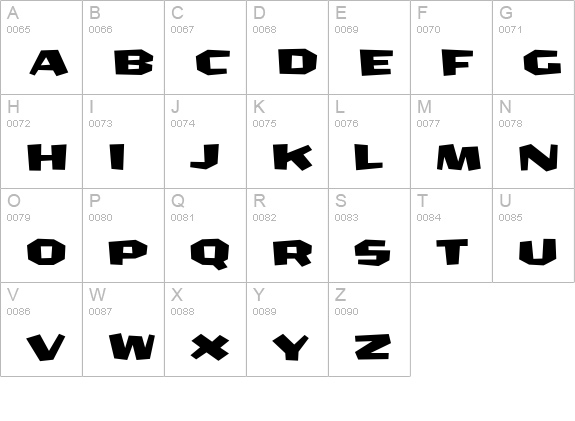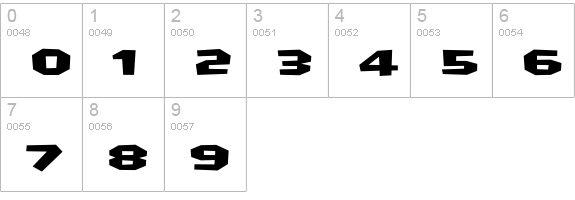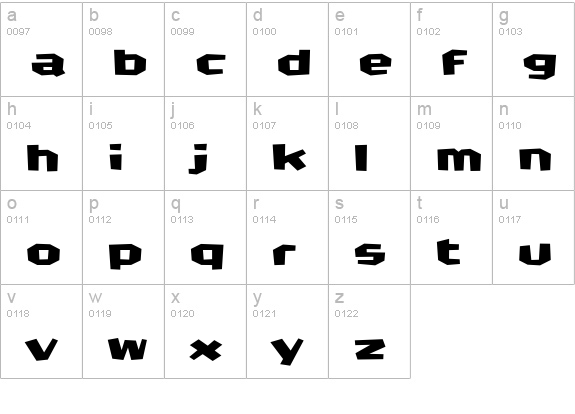
CrashBangWallop-Medium Font Details
CrashBangWallop-Medium is a balanced, medium-weight variant in the CrashBangWallop typeface family \xE2\x80\x94 well suited to sub-headlines, navigation, and balanced editorial work.
CrashBangWallop-Medium font is a dynamic and energetic typeface that exudes a sense of power and impact. With its bold strokes and sharp edges, this font is perfect for making a statement and grabbing attention. The medium weight adds just the right amount of emphasis without overpowering the text. Best of all, CrashBangWallop-Medium font is available for free download at FontsMarket.com. Whether you're looking to add a bold touch to your designs or create eye-catching headlines, this font has got you covered. Don't miss out on the opportunity to elevate your projects with the striking CrashBangWallop-Medium font today!